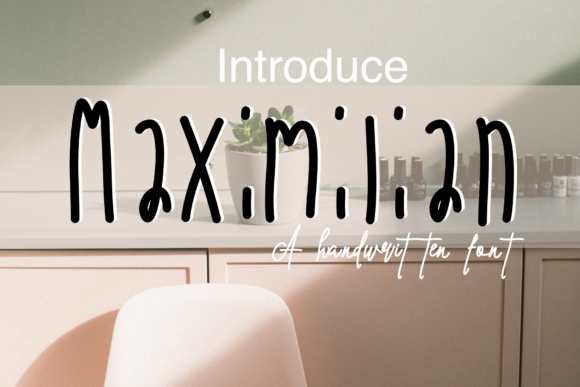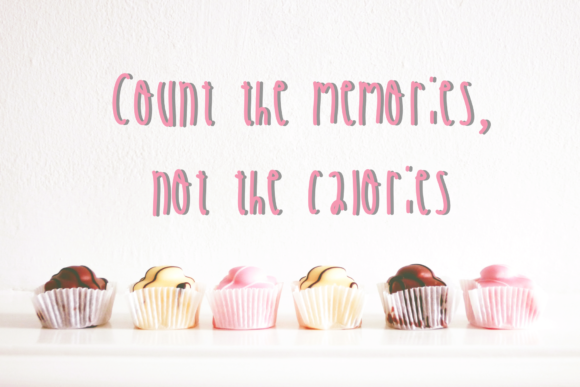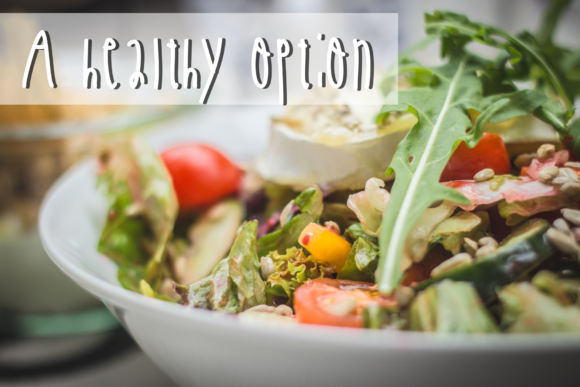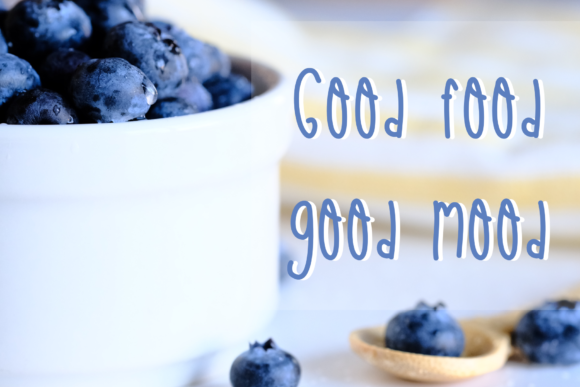
About Maximilian Font
Maximilian is a sweet and incredibly unique handwritten font. Its friendly feel makes this font incredibly versatile, fitting a wide range of contexts. Add it to your creative ideas and notice how it makes them stand out!